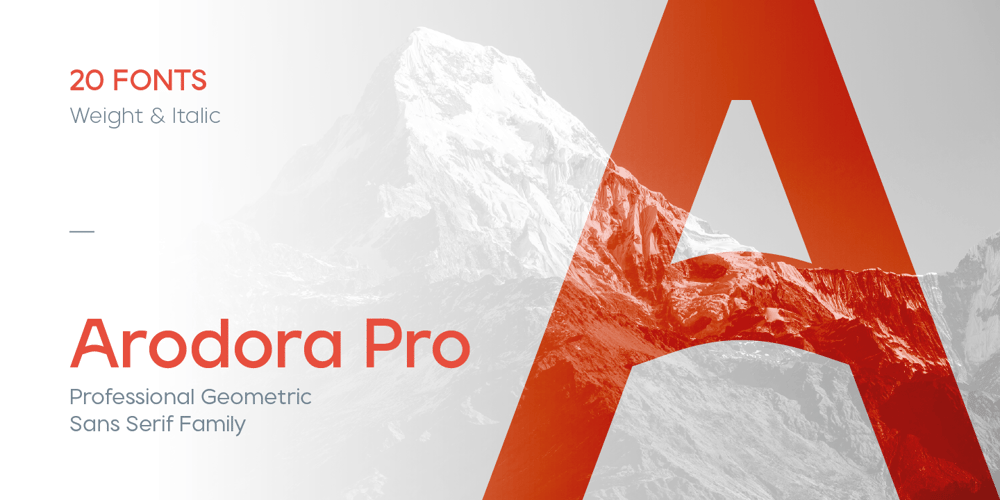
Arodora Pro Font Family was designed by Serdar Öztürk and published by Serdar Ozturk. Arodora Pro contains 20 styles and family package options. Say hello to Arodora.Arodora is a creative sans serif family with modern and geometric lines. It easily adapts to all kinds of creative graphic works and screen applications and reflects you well with its modern appearance. Corporate identities, web designs, mobile applications, ui / ux designs will give you an advantage thanks to its unique appearance.Arodora also offers you Cyrillic Alphabet, Ligatures, Alternate Glyphs, and much more.